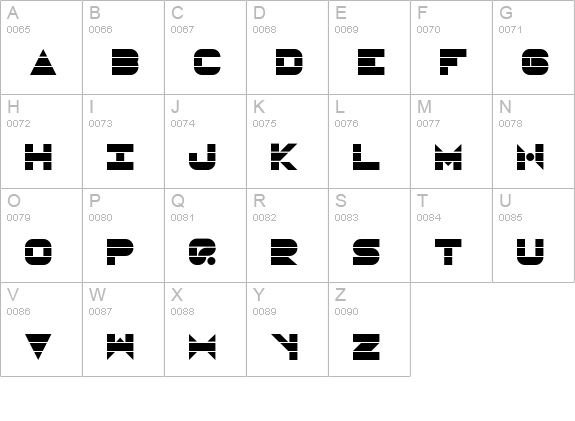
UltraSonic Font Details
UltraSonic font is an incredible display typeface that effortlessly combines futuristic elements with a touch of elegance. This font is perfect for catching attention and giving your design projects a modern and cutting-edge vibe. With its sleek and dynamic letterforms, UltraSonic font is sure to make a bold statement in any context. Whether you're creating a logo, designing a website, or crafting eye-catching headlines, this font will add a touch of sophistication and uniqueness to your work. The versatility of UltraSonic font is boundless, as it can be used for various purposes. Its clean lines and sharp edges make it suitable for both digital and print designs. From sleek tech websites to edgy fashion magazines, this font will elevate your designs to a whole new level. What makes UltraSonic font even more amazing is that it is available for free! Yes, you read that right. This stunning typeface can be freely downloaded at FontsMarket.com, a trusted source for high-quality fonts. So not only will you be able to create stunning designs with UltraSonic font, but you can do so without spending a dime. Don't miss out on the opportunity to add this extraordinary font to your design arsenal. Download UltraSonic font for free at FontsMarket.com and unleash your creativity with its futuristic and captivating aesthetic.